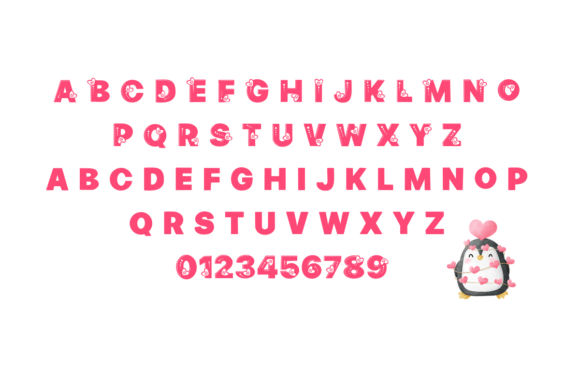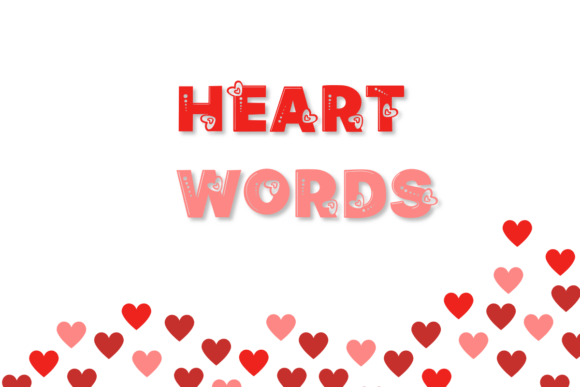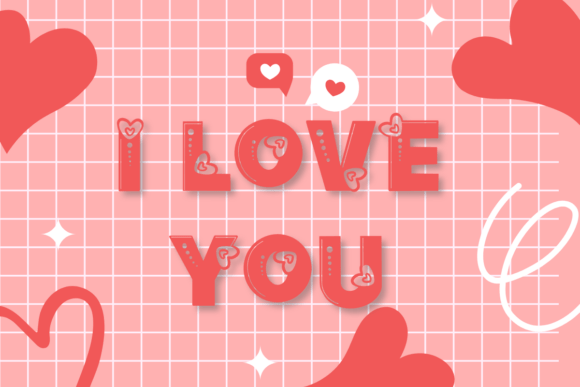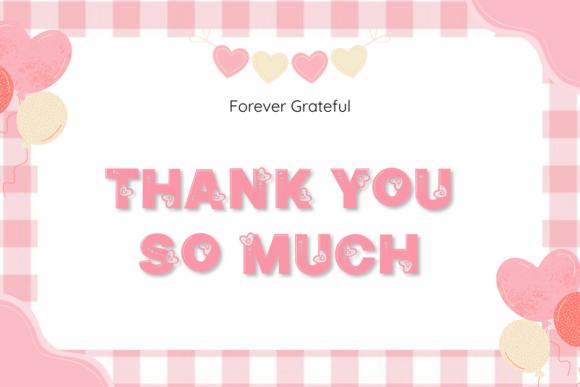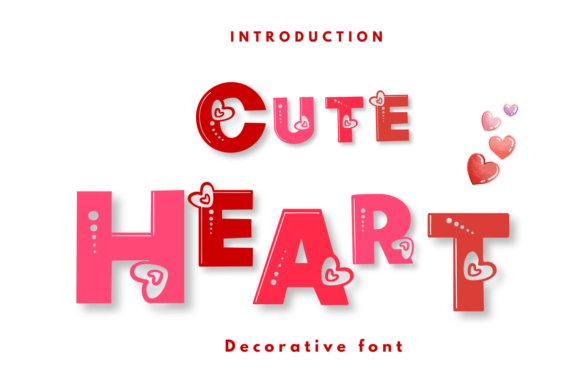
Cute Heart Font: Spread Love and Sweetness in Every Design
Are you looking for a playful and decorative typeface that can add a touch of love and sweetness to your designs? Look no further than the Cute Heart Font! This charming font is designed to bring joy and warmth to a wide range of projects, from Valentine’s Day cards to wedding invitations, kids’ crafts, and social media graphics.
What is Cute Heart Font?
The Cute Heart Font is a bold, rounded typeface that features charming heart accents, making it perfect for designers who want to create joyful, love-filled designs. With a full set of uppercase letters, numbers, and heart-themed details, this font combines fun typography with affectionate symbolism.
Perfect for Romantic Projects
Valentine’s Day is just around the corner, and the Cute Heart Font is the perfect choice for creating romantic and sweet designs. Whether you’re designing greeting cards, gift tags, or social media posts, this font will add a touch of love and warmth to your creations. It’s also ideal for wedding invitations, anniversaries, and other romantic celebrations.
Kids’ Crafts and DIY Projects
The Cute Heart Font is not just limited to romantic projects. Its playful and friendly style makes it perfect for kids’ crafts, DIY projects, and educational materials. Use it to create fun and engaging designs for kids’ parties, activity sheets, and handmade crafts.
Versatile and Adaptable
One of the best things about the Cute Heart Font is its versatility. It can be used for both digital and print applications, making it ideal for a wide range of projects, including:
- Branding and packaging
- Kids’ crafts and DIY projects
- Apparel and merchandise
Key Features of Cute Heart Font
The Cute Heart Font comes with a range of features that make it a great choice for designers and crafters. These include:
- Full set of uppercase letters
- Numbers and heart-themed details
- Bold, rounded letters with charming heart accents
- Vibrant and friendly style
Why Choose Cute Heart Font?
So, why choose the Cute Heart Font for your next project? Here are just a few reasons:
- It’s perfect for creating joyful, love-filled designs
- It’s versatile and adaptable for a wide range of projects
- It’s easy to use and pairs well with other fonts
- It’s a great way to add a touch of cuteness and charm to your designs
| Font Name | Cute Heart Font |
| Author | Ketsarin |
In conclusion, the Cute Heart Font is a playful and decorative typeface that’s perfect for designers and crafters who want to add a touch of love and sweetness to their designs. With its bold, rounded letters, charming heart accents, and vibrant style, it’s ideal for a wide range of projects, from romantic celebrations to kids’ crafts and DIY projects. So why not give it a try and see how it can bring joy and warmth to your next design?
Get Creative with Cute Heart Font!
Ready to get creative with the Cute Heart Font? Here are some ideas to get you started:
- Create a Valentine’s Day card or gift tag
- Design a wedding invitation or anniversary card
- Make a kids’ craft or DIY project
- Create a social media graphic or post
- Design a piece of apparel or merchandise
Whatever your project, the Cute Heart Font is sure to bring a touch of love and sweetness to your design. So why not give it a try and see the difference it can make?